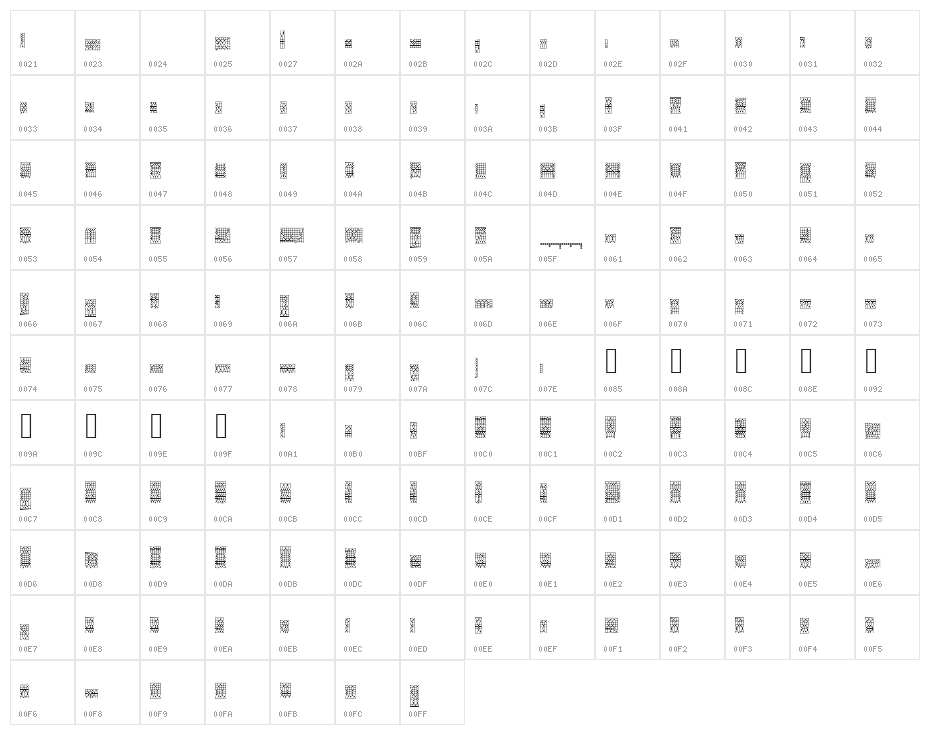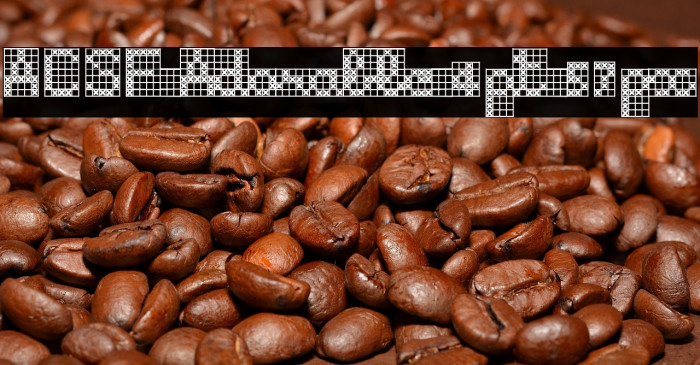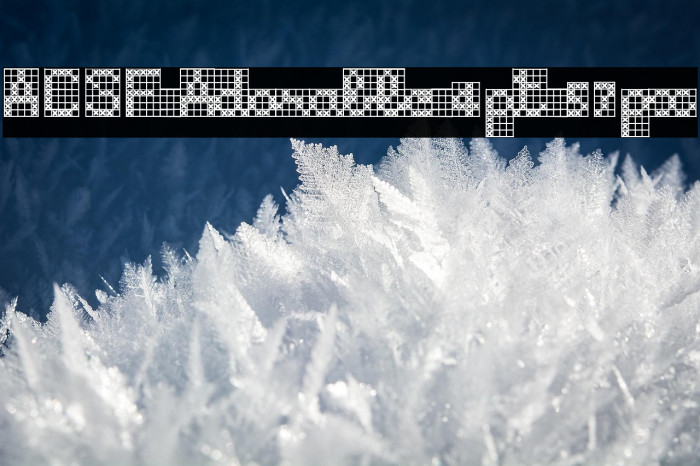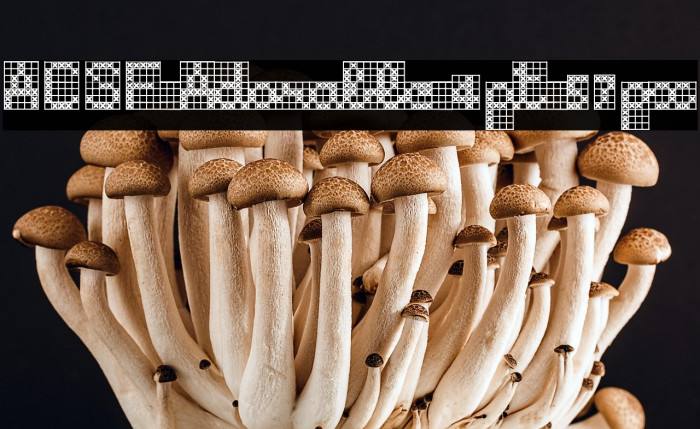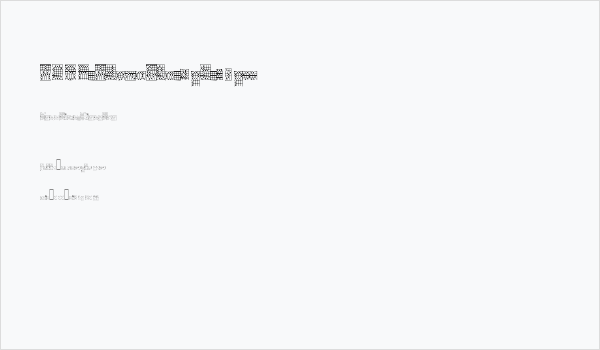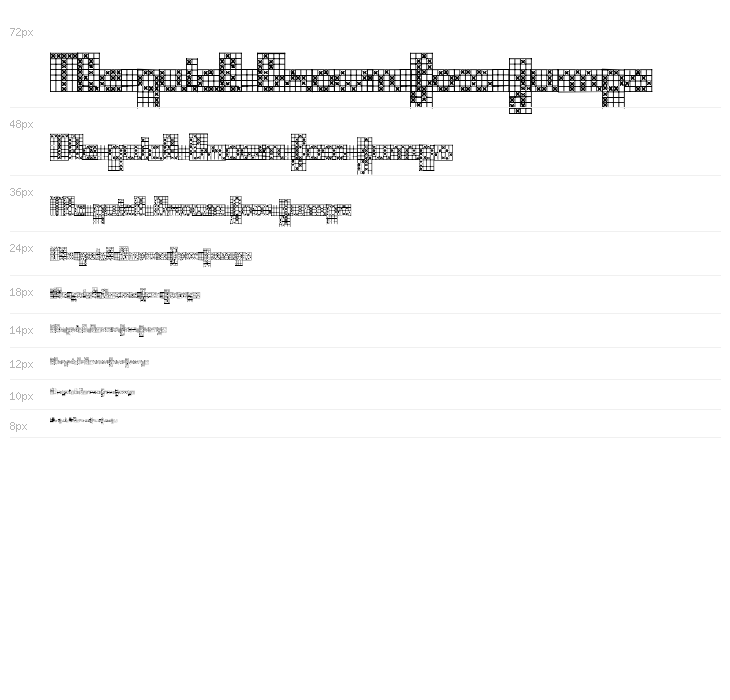
ACSF Adorable 4pt 57px Font
ACSF Adorable 4pt 57px Description
This font features a unique grid-based design, where each character is constructed from a series of small squares and crosses, creating a pixelated and geometric appearance. The characters are enclosed within a square outline, giving them a structured and uniform look. This style is reminiscent of early digital or arcade game typography, offering a nostalgic and playful vibe. The font maintains consistent proportions across all characters, ensuring readability while adding a distinct visual texture. Its decorative nature makes it suitable for creative and unconventional design projects.
| Use Case | Logos, Posters, Digital Art |
| Proposed Projects | Ideal for retro-themed designs, video game graphics, posters, and creative digital art. |